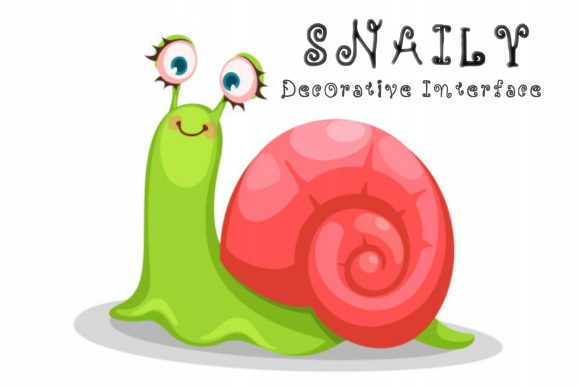
Personal Use Free Snaily 0 131 FacebookTwitterPinterestWhatsApp 1 of 3 About Snaily Font Snaily is an adorable quirky display font. It will add an incredibly joyful touch to your designs.Fall in love with its playful style and use it to create beautiful stationary art, eye-catching social media posts, and much more! DOWNLOAD NOW